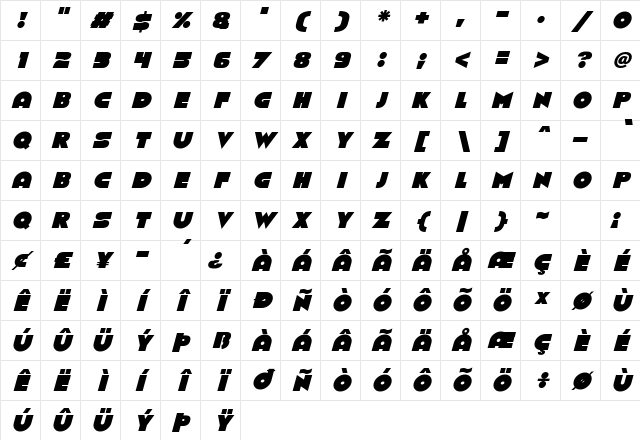
Bananas Font Italic
Design Context for Bananas Font
Bananas Font is a composed and adaptable typeface that performs quietly and consistently across a wide range of design contexts. The slanted form adds forward momentum and visual energy.
Pro Tip: Use Bananas Font for emphasis, pull quotes, and subheadings where its slanted energy can add rhythm to the layout.